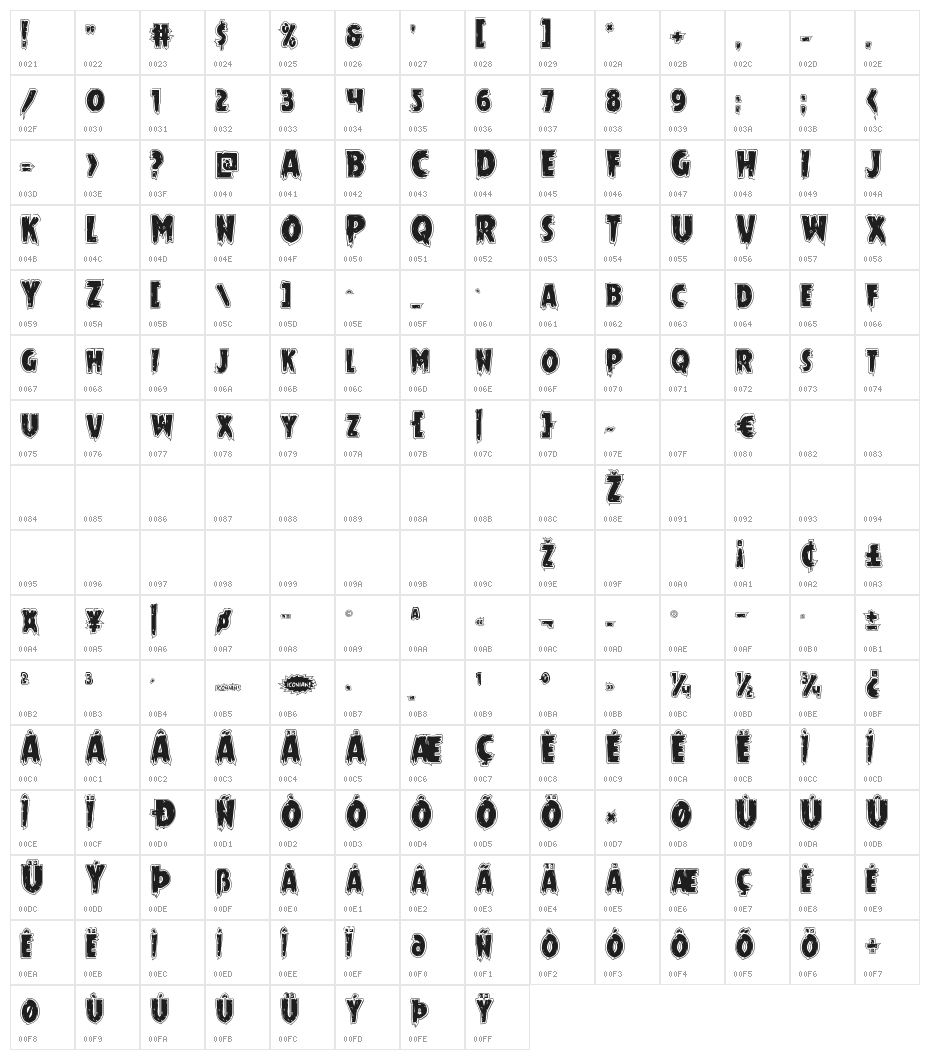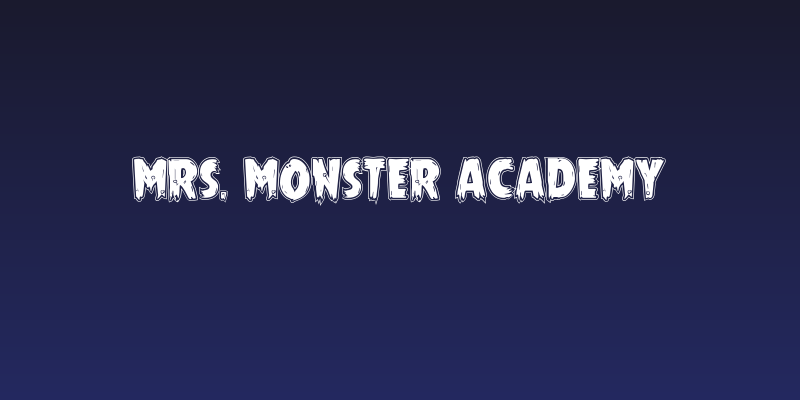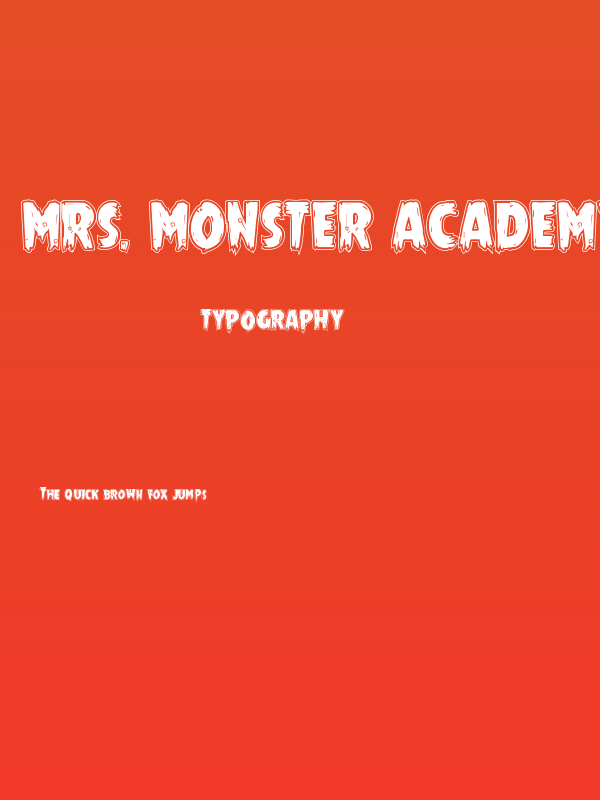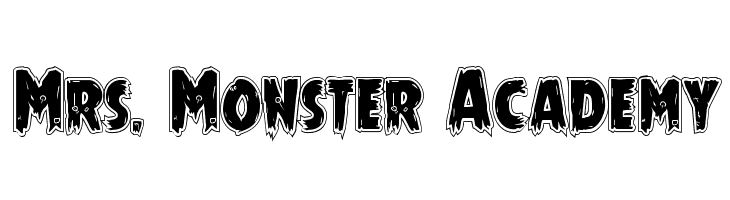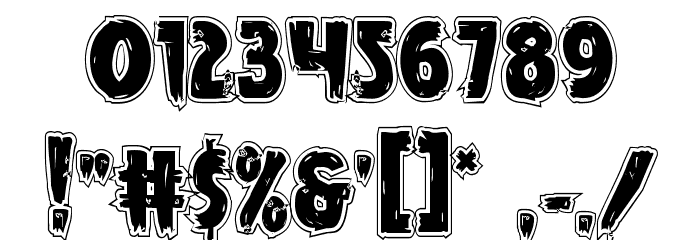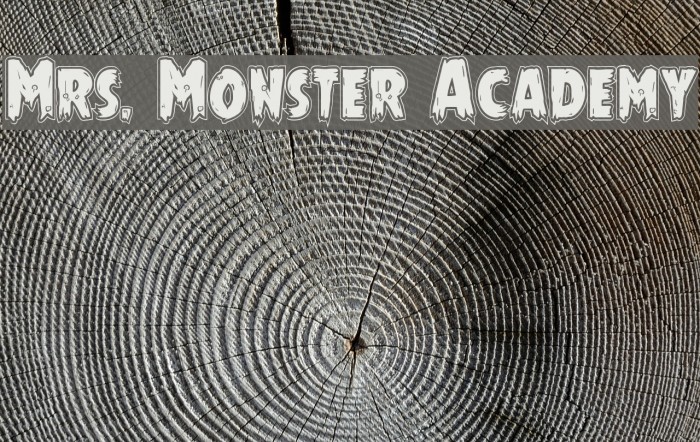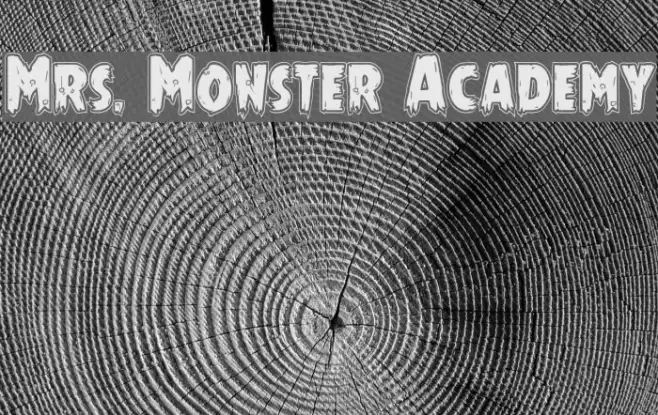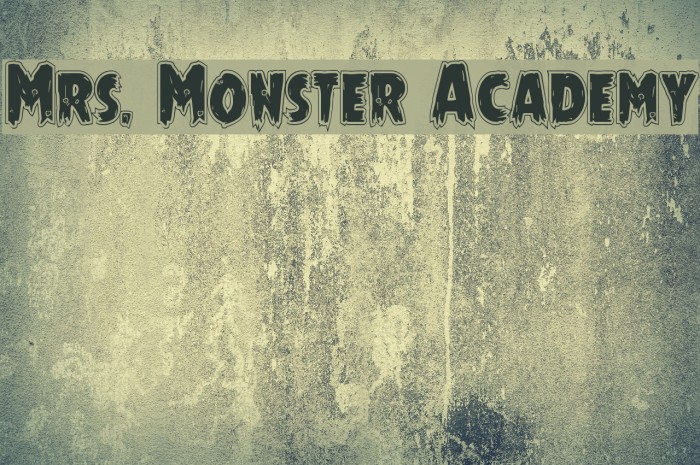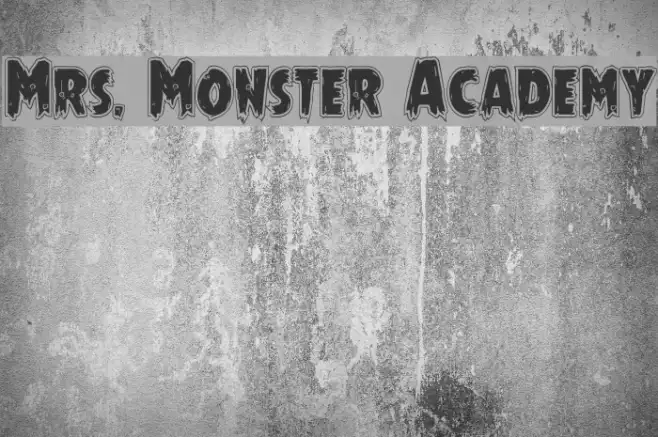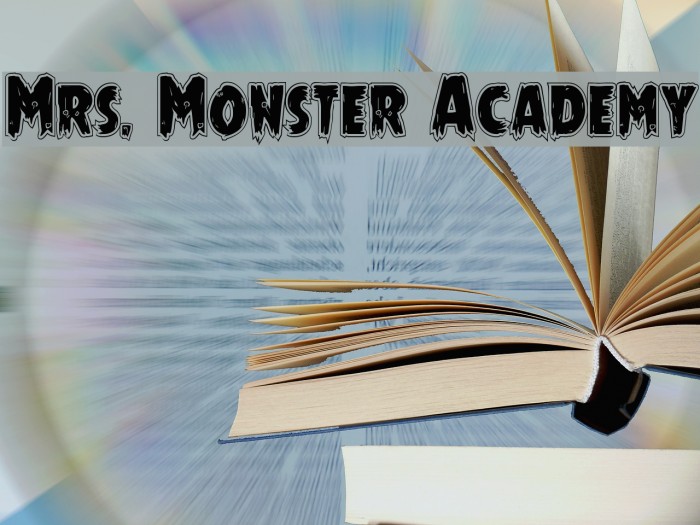
Mrs. Monster Academy Font
Mrs. Monster Academy Description
This font features a bold, playful design with a spooky, monster-themed aesthetic. Each character is outlined with jagged edges, giving it a dynamic and energetic appearance. The letters are thick and substantial, with a high contrast between the black fill and the white outline, enhancing its visibility and impact. The style is reminiscent of classic horror or Halloween themes, making it perfect for projects that require a fun yet eerie touch. The font maintains a consistent weight throughout, ensuring readability while still delivering a unique visual flair.
| Proposed Projects | Ideal for Halloween-themed posters, children's book covers, party invitations, and horror movie titles. |